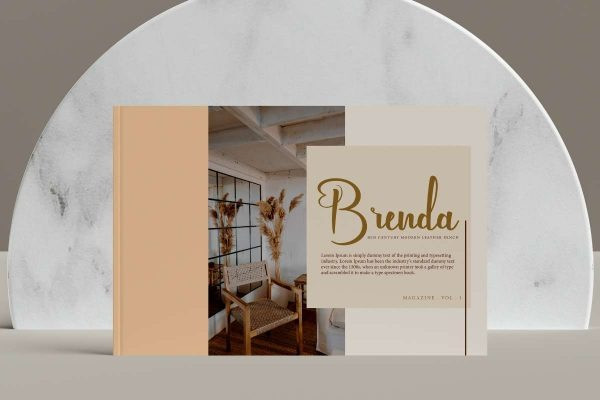
Seven Loves Font
Seven Loves Font is a beautiful and lovely script font with beautiful swashes and ligatures. It has a classy, elegant and modern look that can be used for business card, fashion brand, florist, headline, label, logos, quotes, stationery, wedding designs and much more!
Seven Loves Font is PUA encoded which means you can access all of the glyph and swashes with ease! It looks stunning on wedding invitations or products, business cards, logos, magazine, quotes and every other design which needs a handwritten touch.